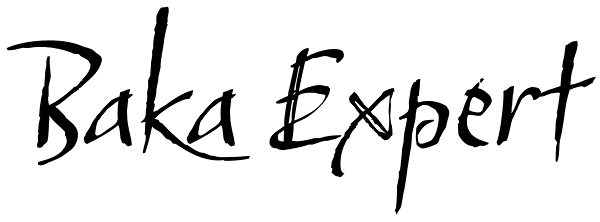
Baka Expert
Why Baka Expert? There’s actually a simple answer. The original Baka was done as an experiment of sorts. I wanted to quickly capture a rough, frenetic handwriting style that broke normal conventions. Commercially, it was successful, received some...